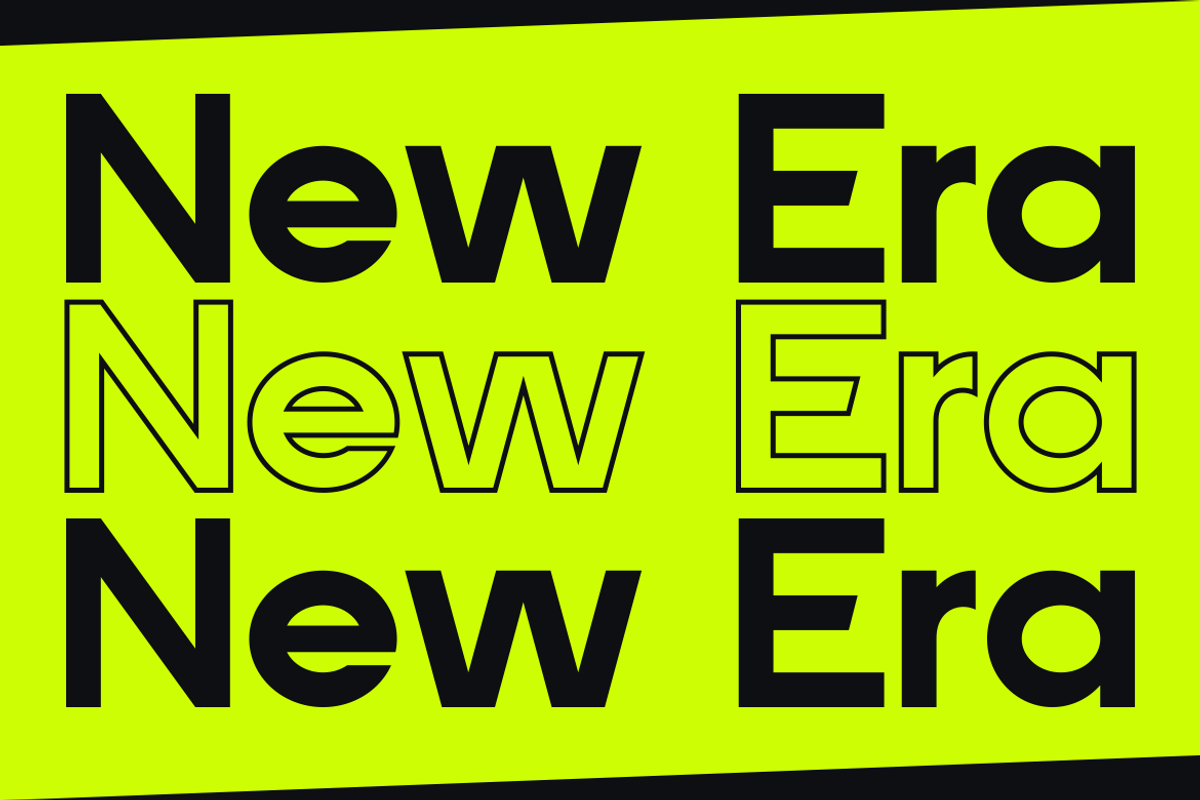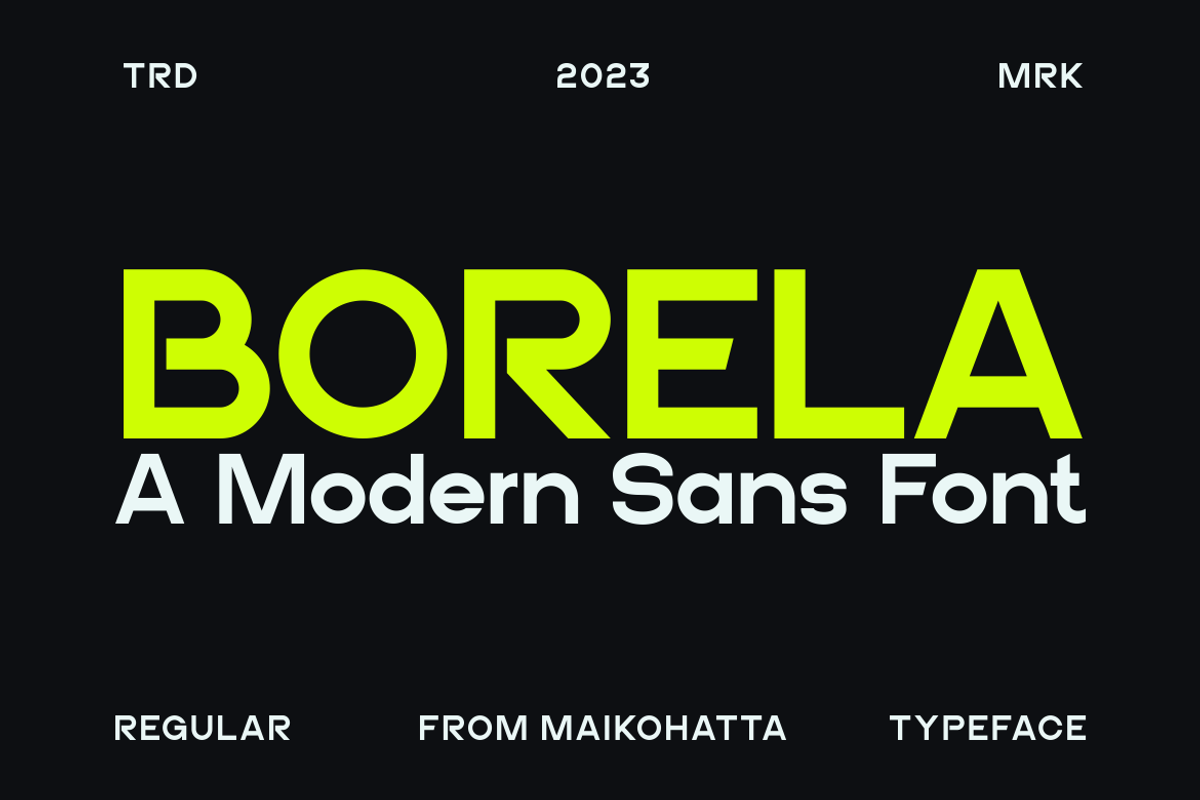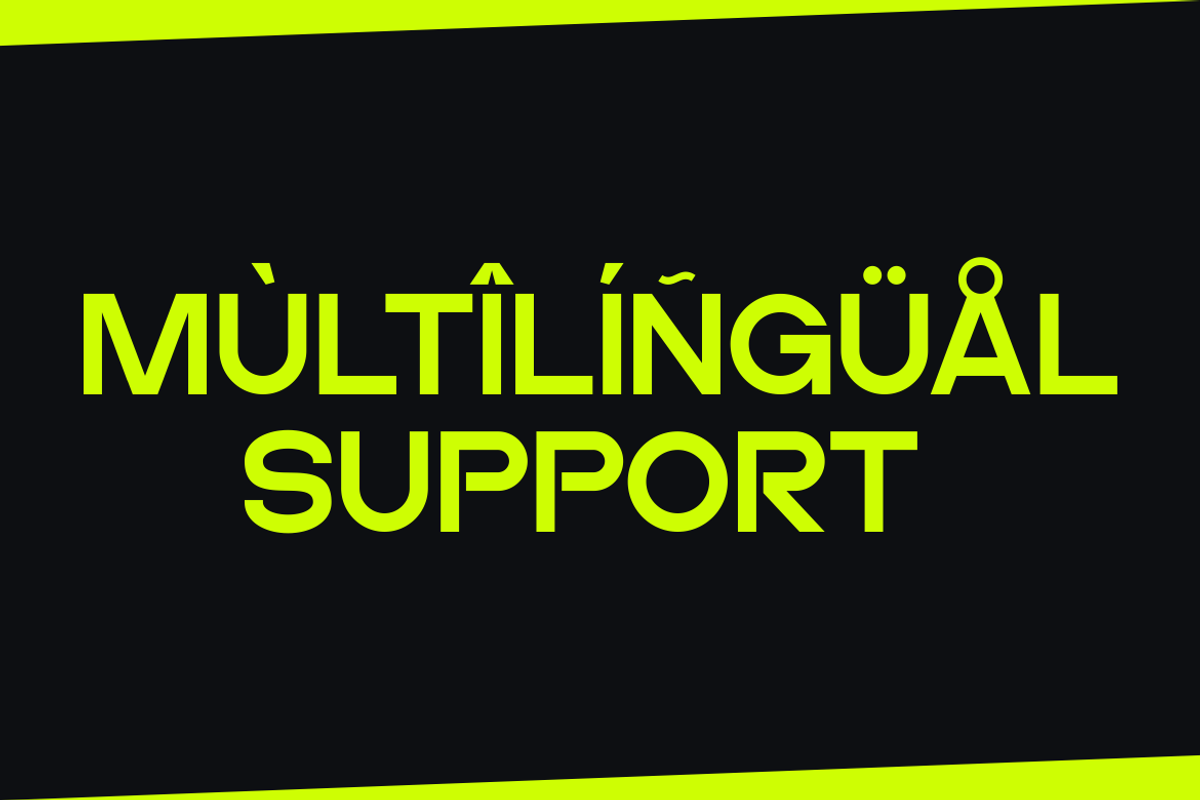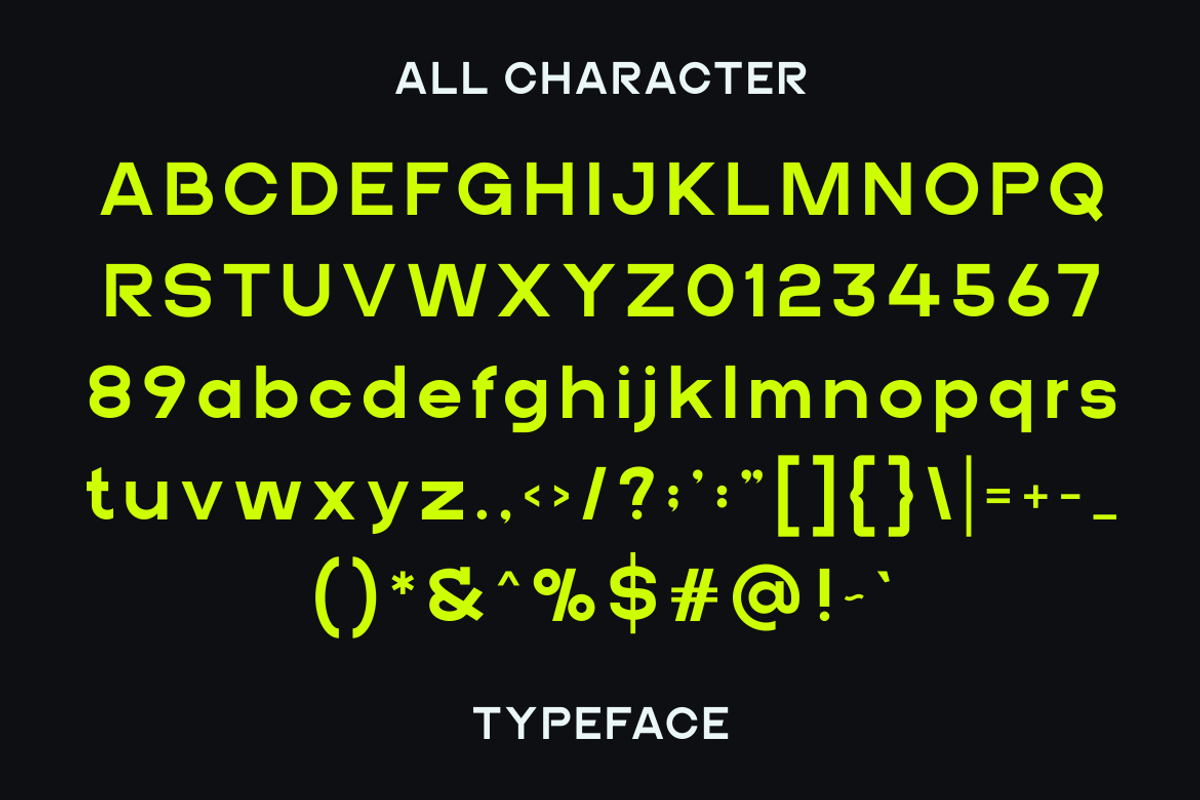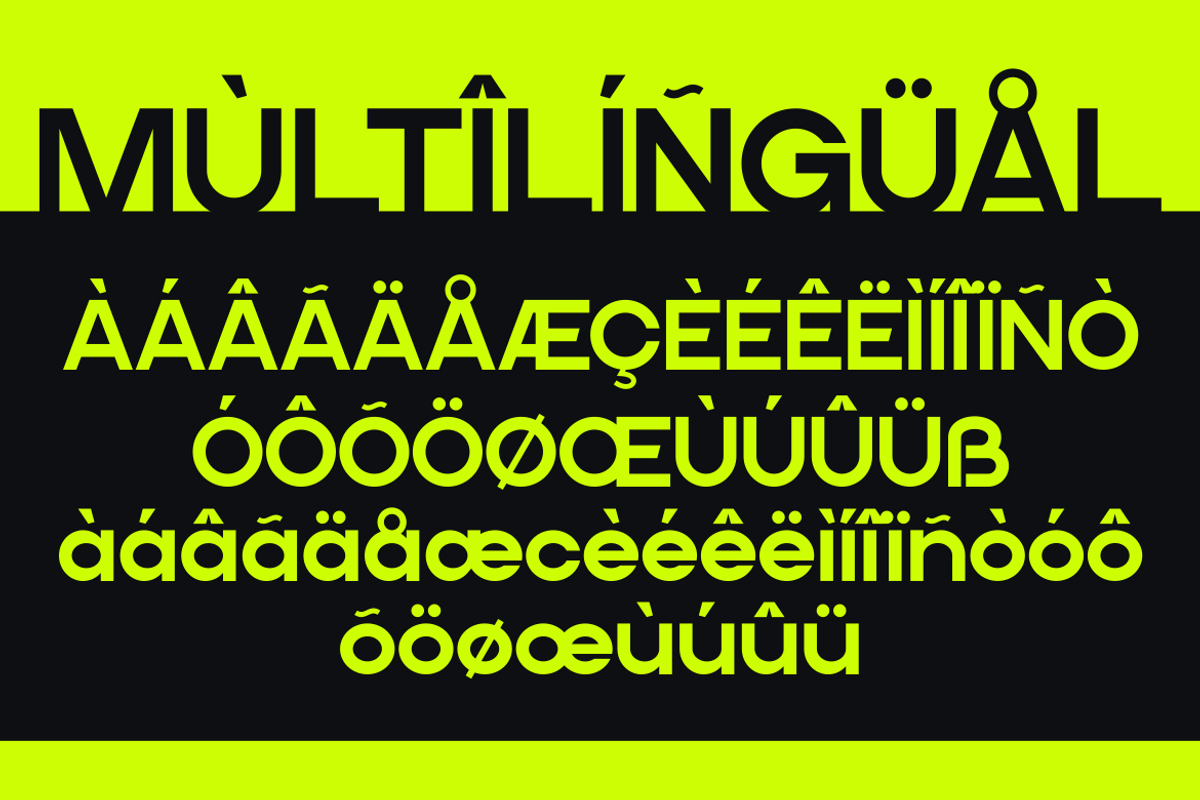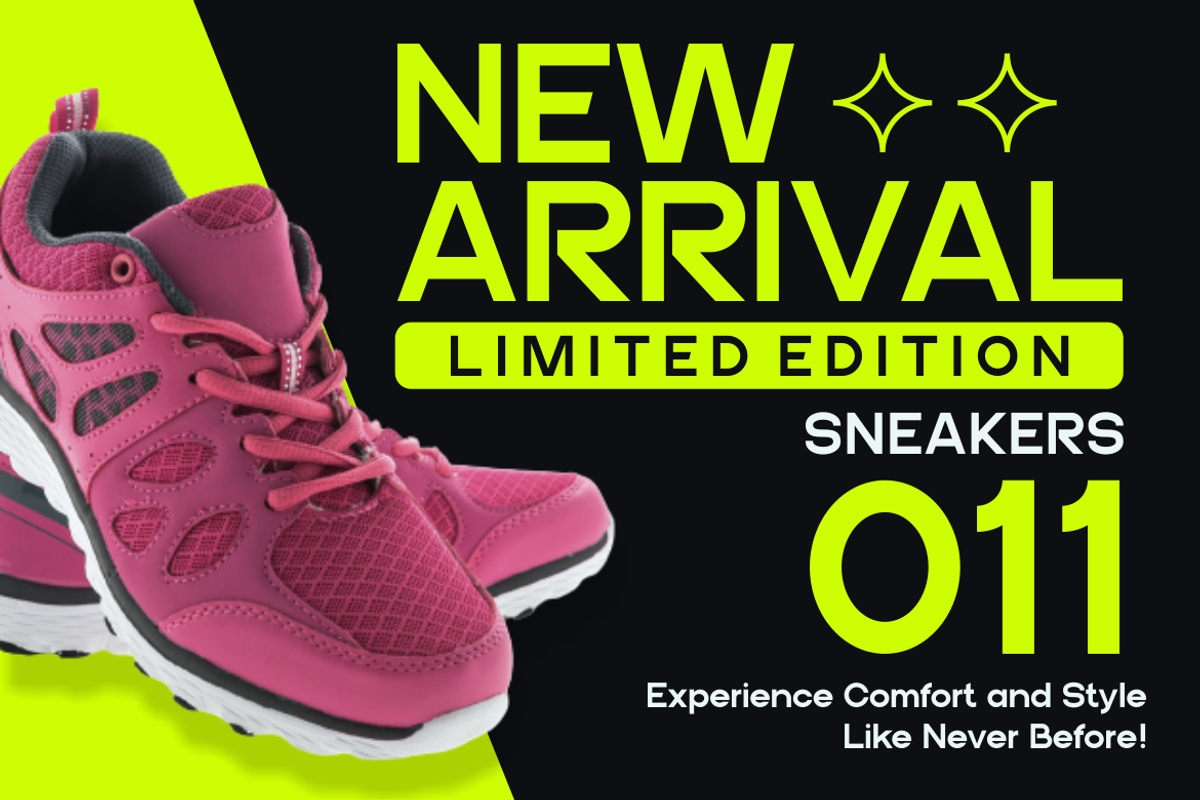
Borela - A Modern Sans Font
Introducing our new product Borela - A Modern Sans Font
Borela - A Modern Sans Font is a bold and authentic display font. The font is suitable for any branding project like logo, template design, and many more. outstanding in a wide range of contexts.